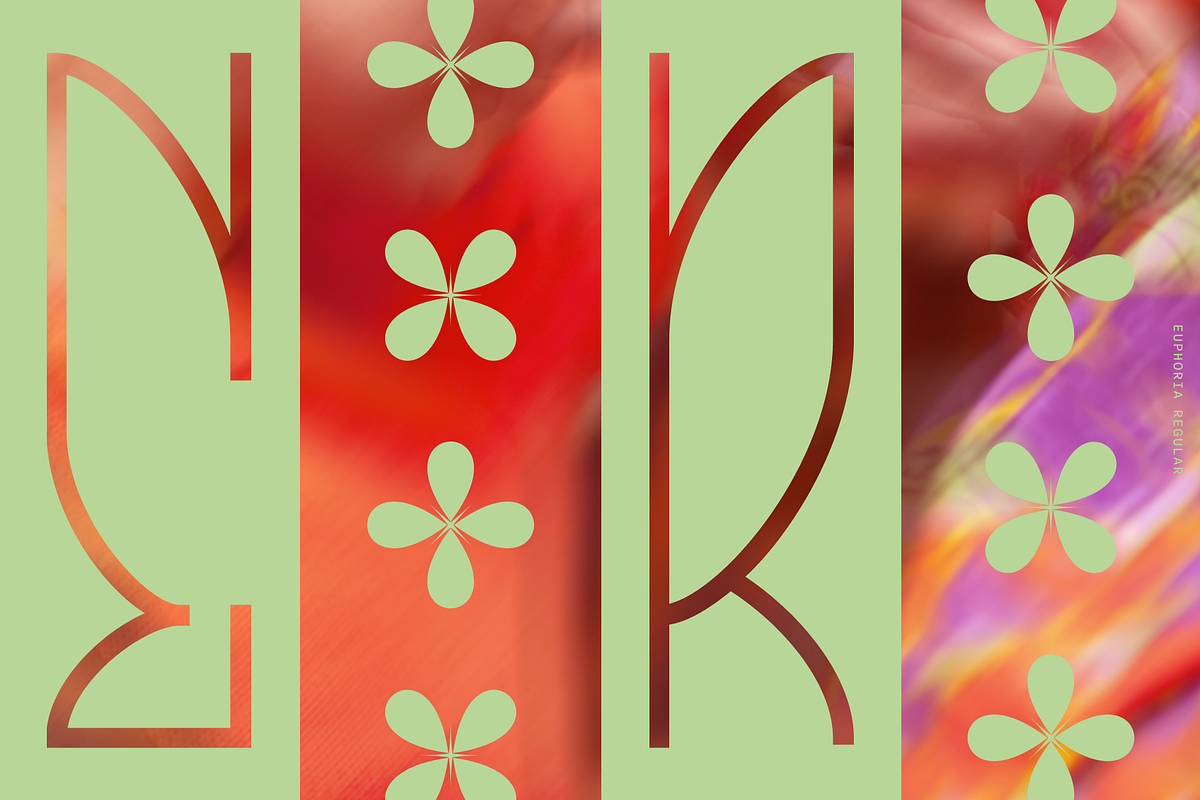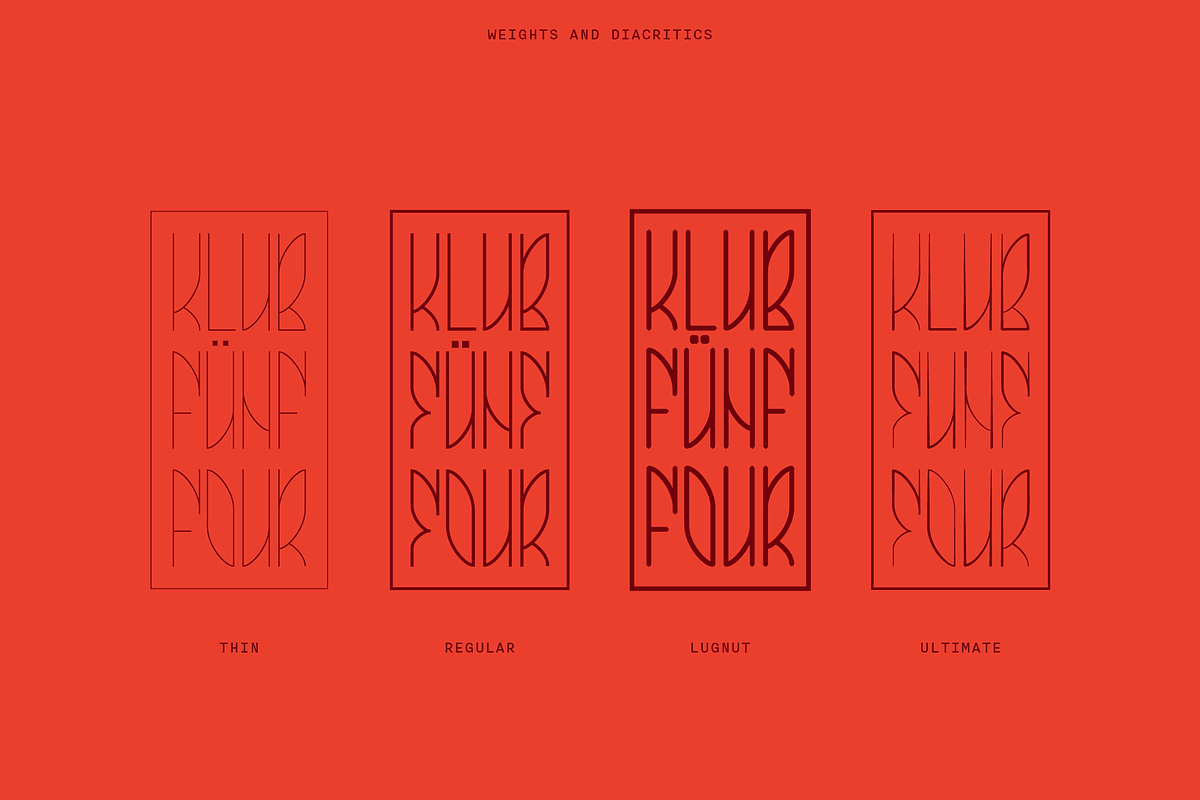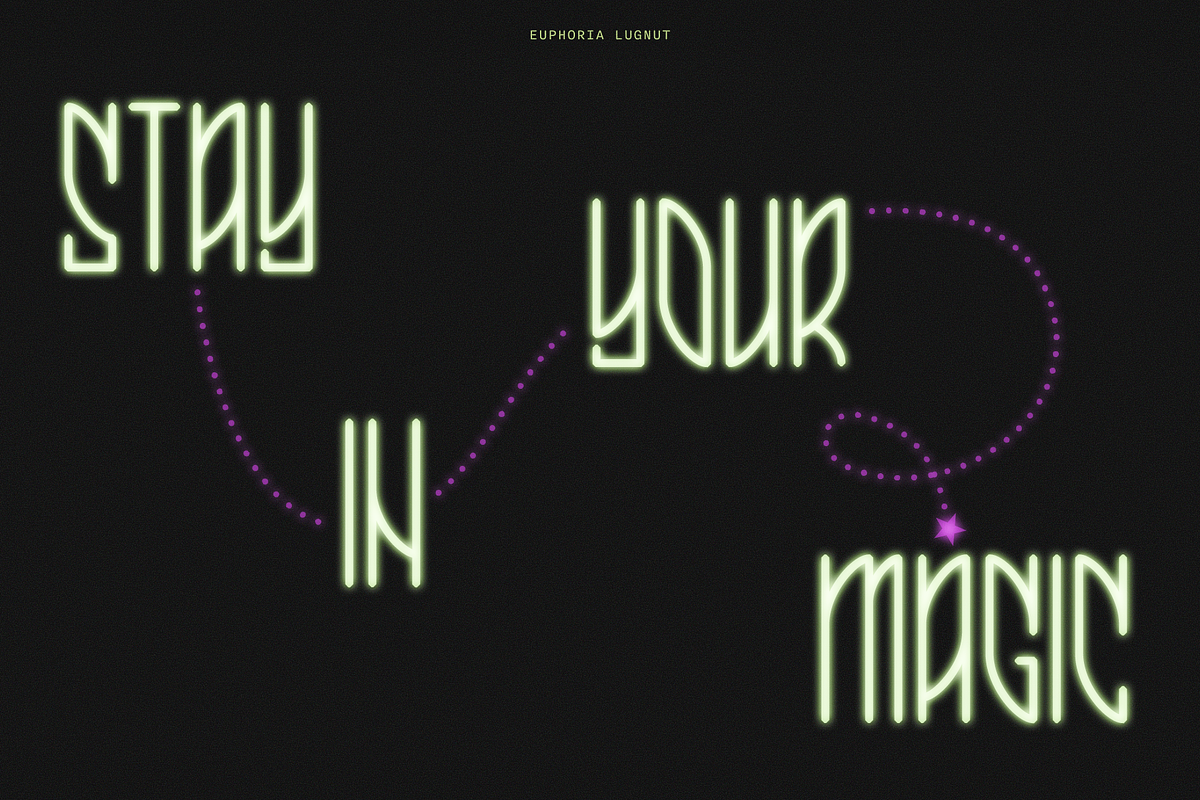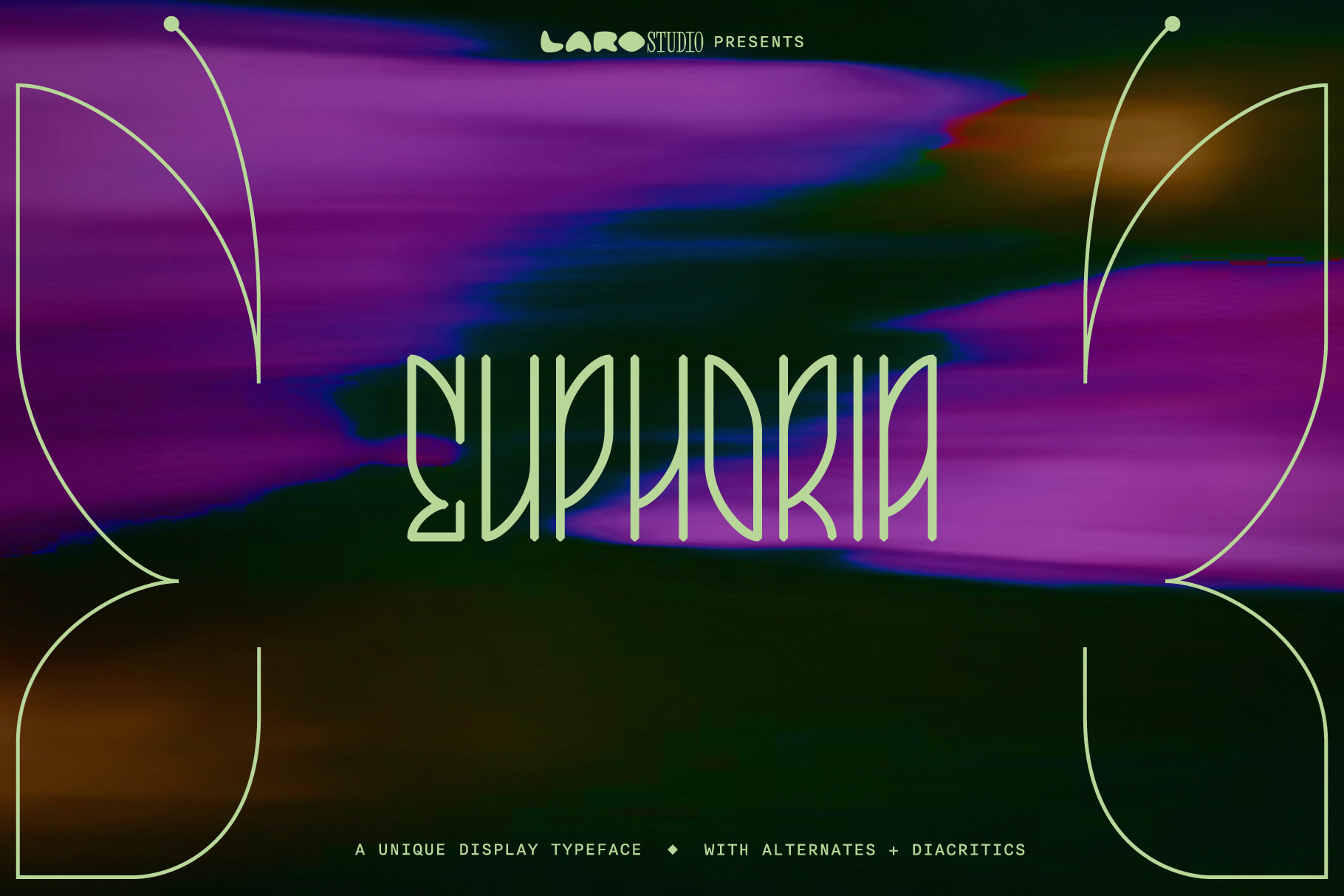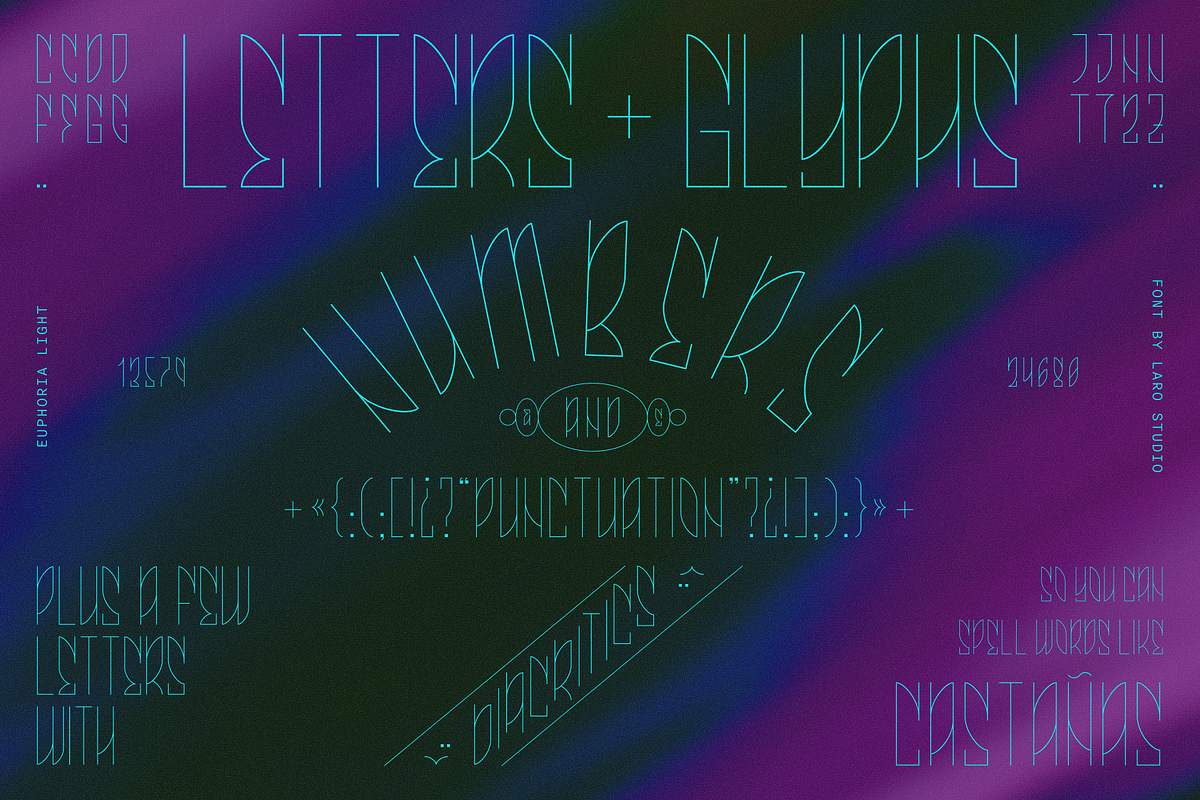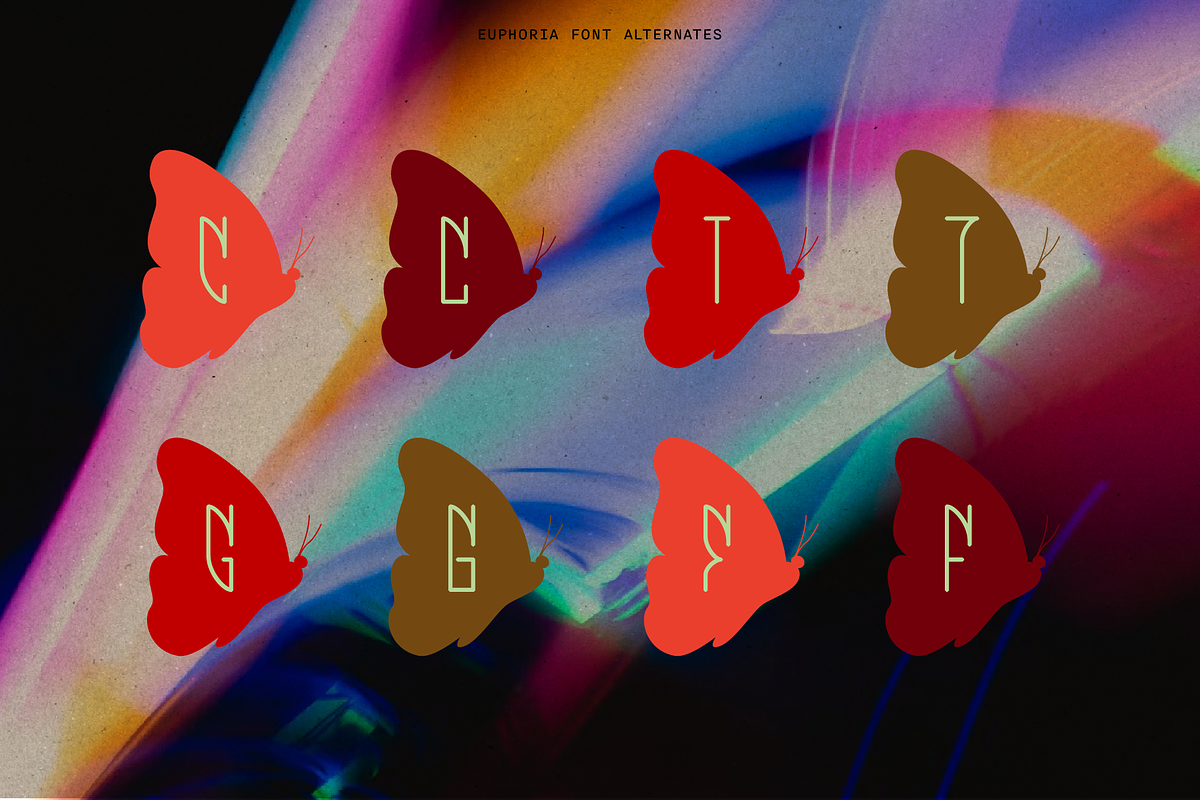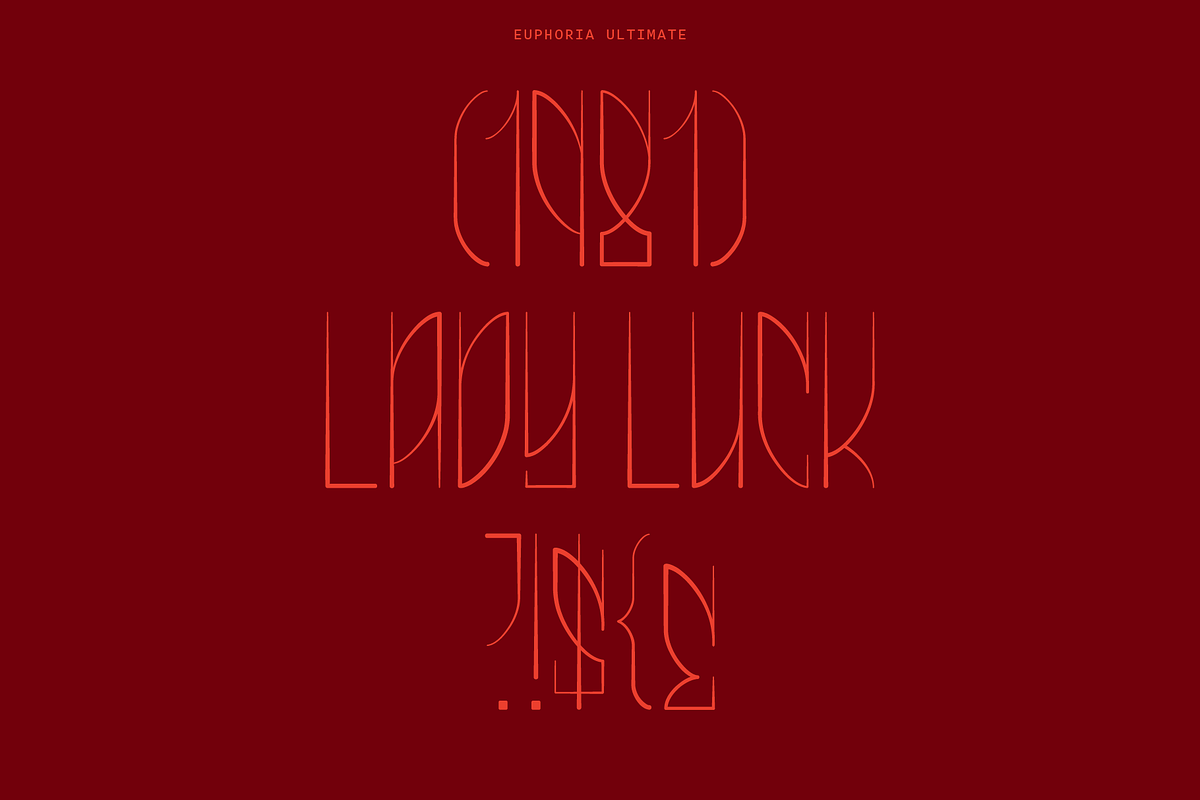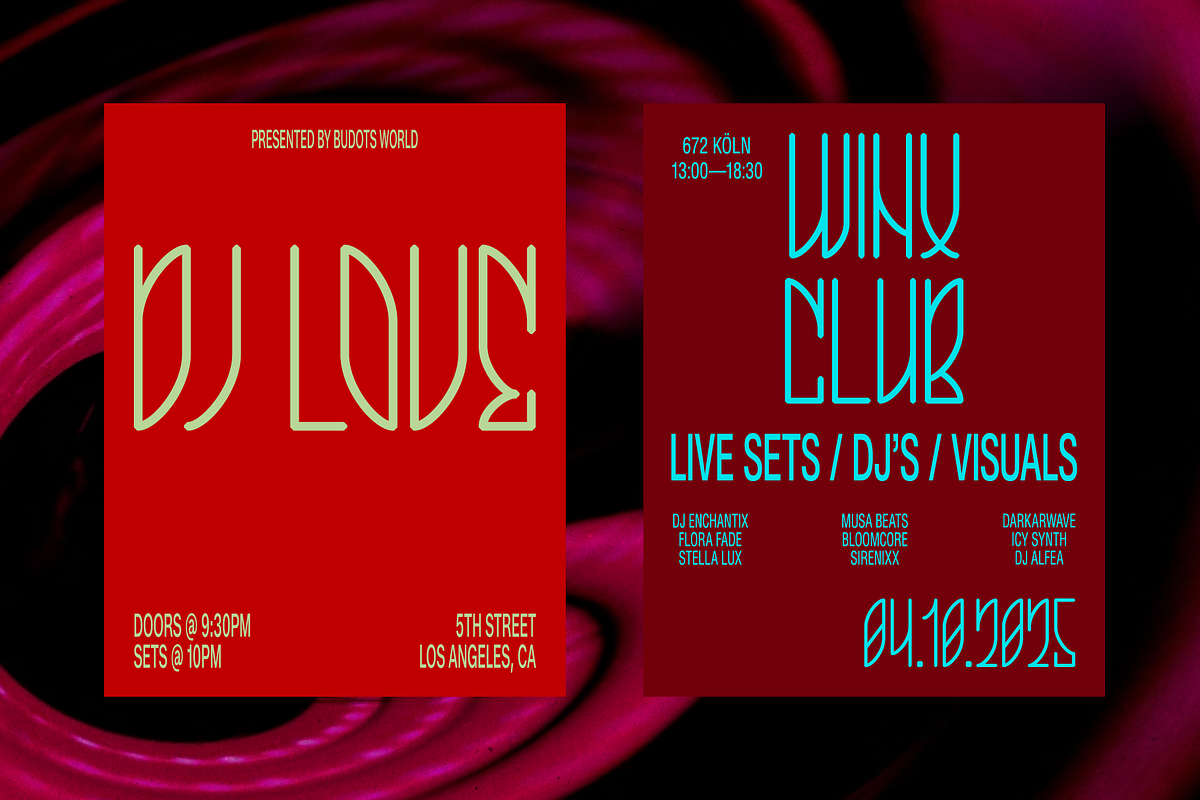
Euphoria Font Family by LARO Studio
Euphoria is a font full of dualities: soft but edgy, sharp but soft, straight but curved. Its distinctiveness allows it to transform with its context; pair Euphoria Lugnut with a simple sans serif for a more modern or casual vibe, Euphoria Ultimate with the right serif for something a little more decorative, or be as adventurous as you want and make your own unique font combo with any of the four Euphoria variations.